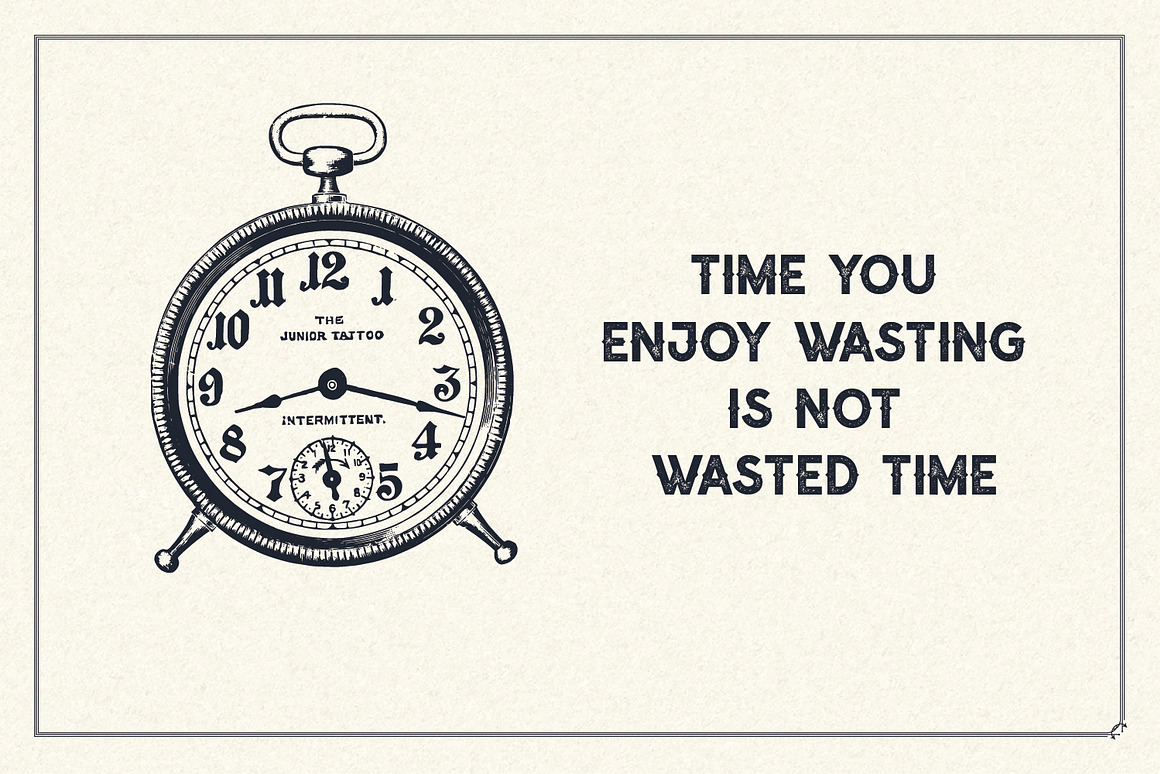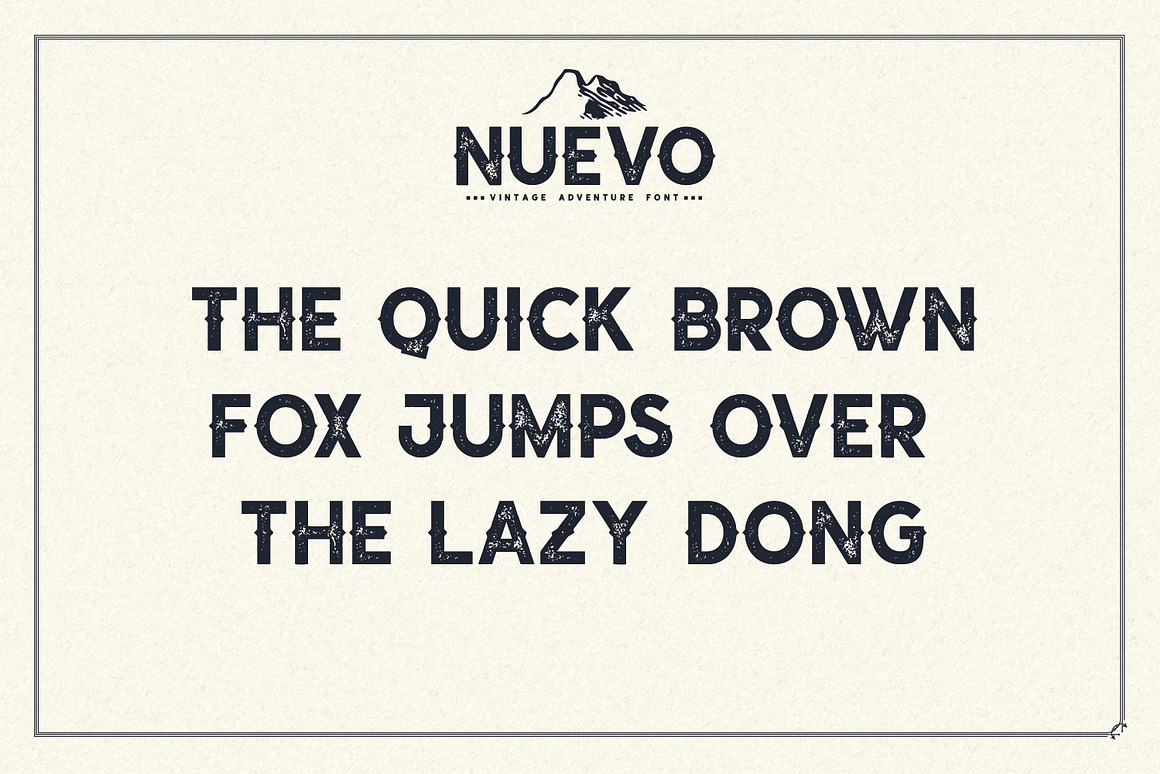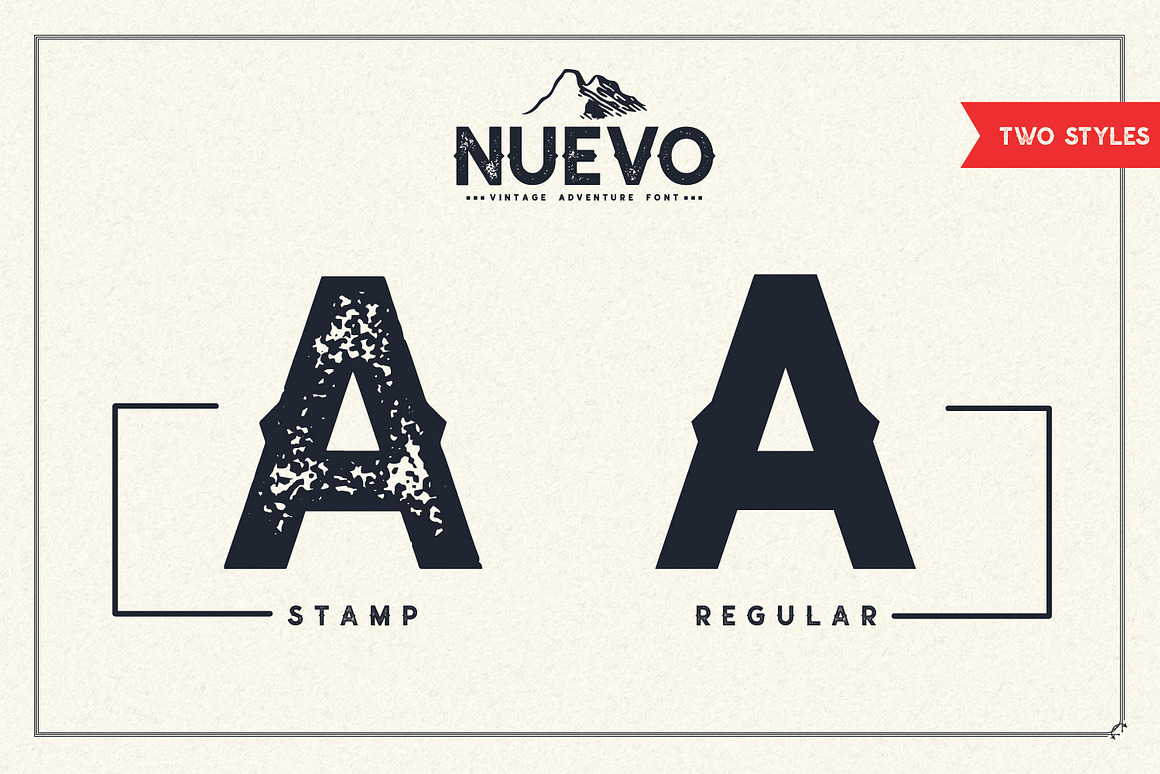
Nuevo - Vintage Adventure Font
Nuevo - Vintage Adventure Font is perfect for outdoor branding, travel posters, adventure blogs, logos, and apparel designs. Its classic vintage style adds a nostalgic, rugged feel to any project.
What makes Nuevo - Vintage Adventure Font exciting is its bold, adventurous letterforms that combine retro charm with readability, evoking a sense of exploration and excitement. The font’s distinctive design ensures your text captures attention with character.
The Nuevo - Vintage Adventure Font family includes Regular, Bold, Italic, and Outline variations, giving designers flexibility to create dynamic and visually compelling typographic compositions.